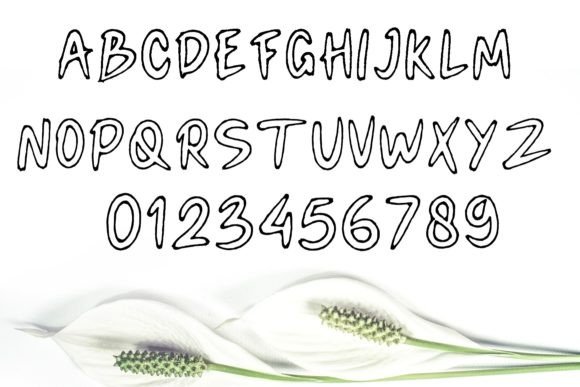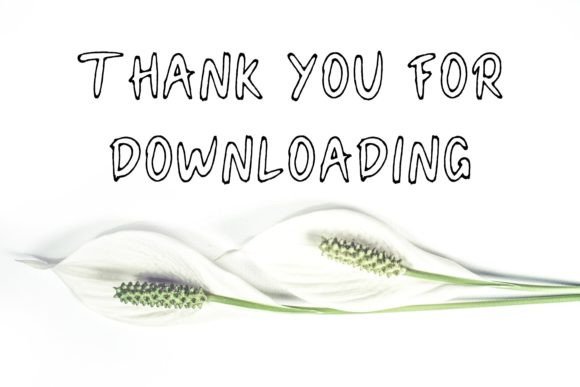
Introducing Brushy Font: Elevate Your Designs with Artistic Flair
In the world of typography, fonts play a crucial role in conveying the tone and personality of a design. For designers and crafters looking to add a touch of sophistication and artistic flair to their projects, Brushy Font is an exciting new addition to the world of typography. This unique typeface seamlessly blends the bold strokes of a brush with an elegant hollow design, making it perfect for a wide range of applications.
The Unique Characteristics of Brushy Font
Brushy Font is characterized by its distinctive brush-like strokes and hollow design. This combination gives the font a dynamic and sophisticated look that is sure to make your text stand out. The bold strokes of the brush add a sense of energy and movement to the font, while the elegant hollow design provides a touch of refinement and luxury.
Whether you’re working on a poster, logo, or branding project, Brushy Font is the perfect choice. Its versatility and unique design make it suitable for a wide range of applications, from creative and artistic projects to more commercial and professional endeavors. With Brushy Font, you can add a touch of artistic flair to your designs and elevate your projects to new heights.
Key Features of Brushy Font
- Unique Brush-Like Strokes: The bold strokes of the brush give Brushy Font its distinctive look and feel.
- Elegant Hollow Design: The elegant hollow design adds a touch of refinement and luxury to the font.
- Dynamic and Sophisticated: The combination of bold strokes and hollow design makes Brushy Font dynamic and sophisticated.
- Versatile: Brushy Font is suitable for a wide range of design applications, from posters and logos to branding and more.
- Experiment with Different Sizes: Brushy Font looks great in a variety of sizes, from small and delicate to large and bold.
- Play with Color: The bold strokes of Brushy Font look great in a range of colors, from bright and bold to subtle and muted.
- Combine with Other Fonts: Brushy Font pairs well with a range of other fonts, so don’t be afraid to experiment with different combinations.
In conclusion, Brushy Font is a unique and exciting new addition to the world of typography. Its distinctive brush-like strokes and elegant hollow design make it perfect for adding a touch of artistic flair to your designs. With its versatility and range of applications, Brushy Font is sure to become a favorite among designers and crafters. So why wait? Download Brushy Font today and elevate your designs to new heights.